Idle Hour Books
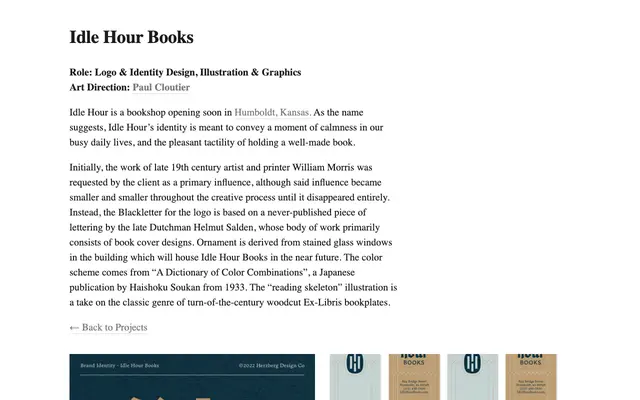
A custom blackletter logo and identity for a Kansas bookshop, drawn from an unpublished piece of lettering by Dutch designer Helmut Salden.
Created for Idle Hour Books, a bookshop in Humboldt, Kansas, this identity centres on a blackletter logotype derived from an unpublished lettering work by the late Dutch designer Helmut Salden, known primarily for his book cover designs. Ornamental elements are drawn from stained glass windows in the building that will house the shop, while the colour palette comes from a 1933 Japanese publication, 'A Dictionary of Color Combinations'. A woodcut-style 'reading skeleton' illustration rounds out the identity, referencing the tradition of turn-of-the-century Ex-Libris bookplates.
The logo uses custom blackletter lettering based on an unpublished piece by Dutch designer Helmut Salden, placing it firmly in the blackletter tradition with a historical bookish character.